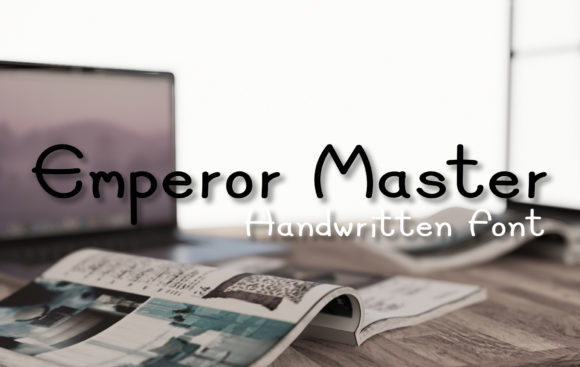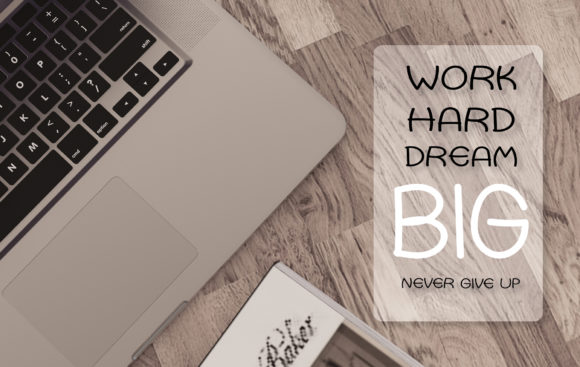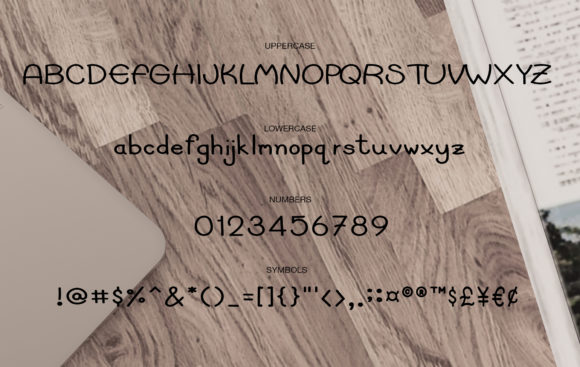
Emperor Master Font
About Emperor Master Font
Emperor Master is a calm and steady script that will add a beautiful vibe to any design idea. Get inspired by its unique charm!